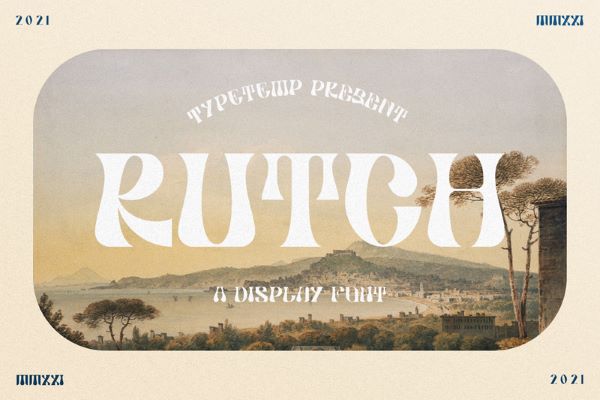
Rutch Font
Rutch Font is a Groovy Font by Typetemp Studio that brings a playful, salient energy to modern and stylish design projects. Its distinctive letterforms carry that unmistakable retro personality — fluid, expressive, and full of character — covering a full A–Z character set that makes it versatile enough for a wide range of creative applications.